# Graphic Design And Font Forecasts From The Experts In 2021
Every new year offers new opportunities for creativity, and nowadays everyone can make a statement. While 2020 took all of us by surprise, creatives aren’t slowing down. New designs can color our impressions of brands and ideas and inspire the next generation of creative professionals. We’re excited for 2021, and these rising trends in graphic design and fonts are a big reason why.
### Rediscovering Nature
This is the ultimate case of, “you don’t know what you’ve got until it’s gone.” Being in nature can be an uplifting experience, as well as a chance to calm ourselves, take a deep breath, and look ahead with confidence. The domino effect of the pandemic has touched every part of our lives, including our freedom of movement. It’s one thing to see pictures of a stunning landscape and dream about going there one day. But when you can’t go anywhere, those dreams suddenly seem unattainable. While we’re optimistic that we’ll all be able to travel again soon, until that time comes again design can fill in the gaps.
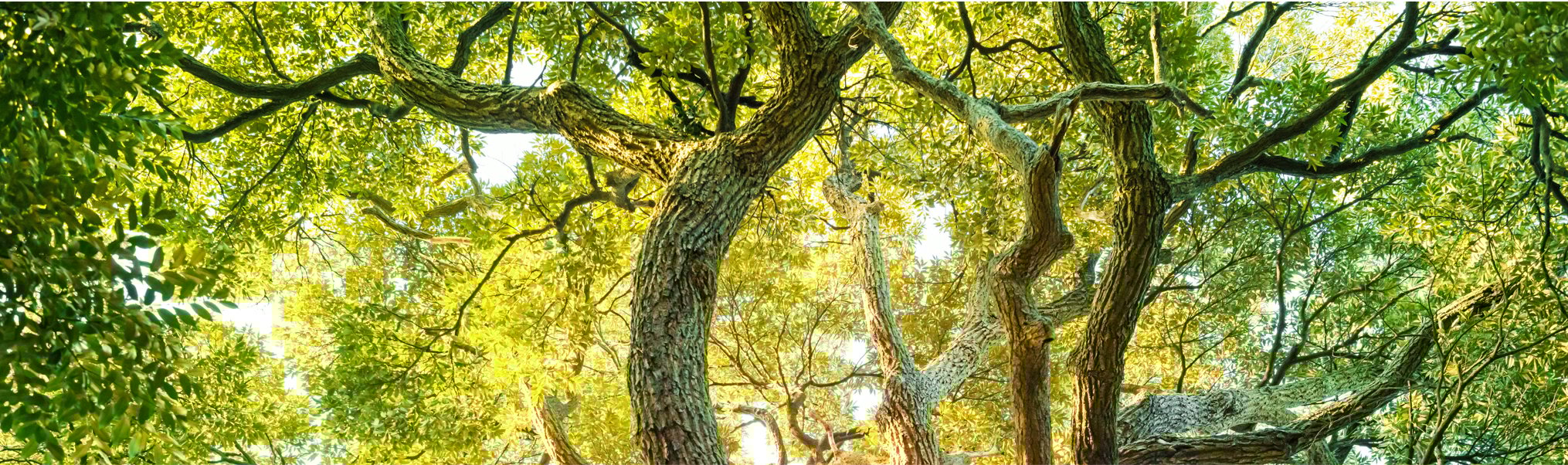
What does a focus on nature look like in design? Far from being rough and unkempt, designs that draw inspiration from nature emphasize [earth tones, flowing lines, and smooth color gradients](https://graphicmama.com/blog/graphic-design-trends-2021/#nature-design-trend-2021). They highlight our shared humanity, [connecting the person seeing the design with the person behind the design](https://www.creativeboom.com/inspiration/the-biggest-trends-in-graphic-design-for-2021/). Because it’s not just that our freedom of movement has been restricted. It’s that our freedom of movement has been restricted along with our freedom to gather. We are not separate from nature, and when we acknowledge this in our designs, we will come that much closer to connecting with our audience.